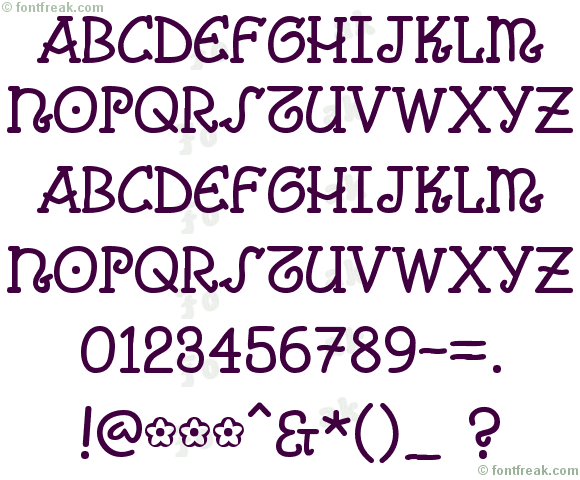
Comic Arousa
The Comic Arousa font by Ruben Prol is a delightful display typeface that captures the essence of comic book lettering. As a decorative font, it features playful, whimsical letterforms that evoke a light-hearted and fun atmosphere. The strokes are bold and consistent in weight, providing a robust presence on any page. The rounded edges and unique character shapes contribute to its friendly and approachable aesthetic, making it an ideal choice for various creative projects.
Comic Arousa's visual characteristics include a moderate contrast between thick and thin strokes, which enhances readability while maintaining a playful vibe. The spacing is well-balanced, allowing for seamless integration into both headings and body text. This font is particularly well-suited for use in children’s books, comic strips, and educational materials, where engaging visuals are essential to capture the audience's attention. Additionally, it can be effectively used in promotional materials like flyers and posters for family-friendly events, as well as in social media graphics that aim to convey a cheerful message.
Target audiences for Comic Arousa include graphic designers, small business owners, and content creators who seek to add a touch of whimsy to their work. Its versatility makes it an excellent choice for projects aiming to engage and entertain, from birthday invitations to merchandise branding.
In summary, Comic Arousa stands out due to its unique blend of playfulness and readability, making it a fantastic option for anyone looking to infuse their designs with a sense of joy and creativity. For those interested, the Comic Arousa font free download offers an opportunity to enhance your creative projects with this charming typeface.